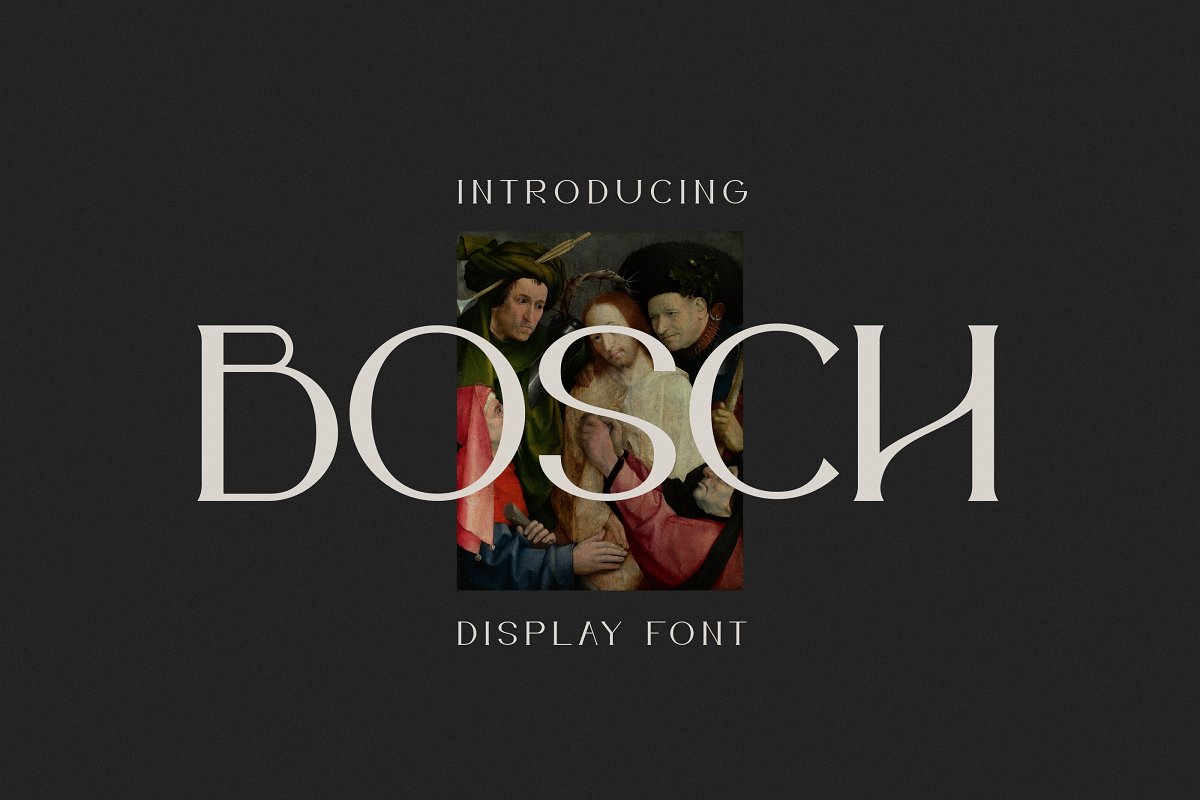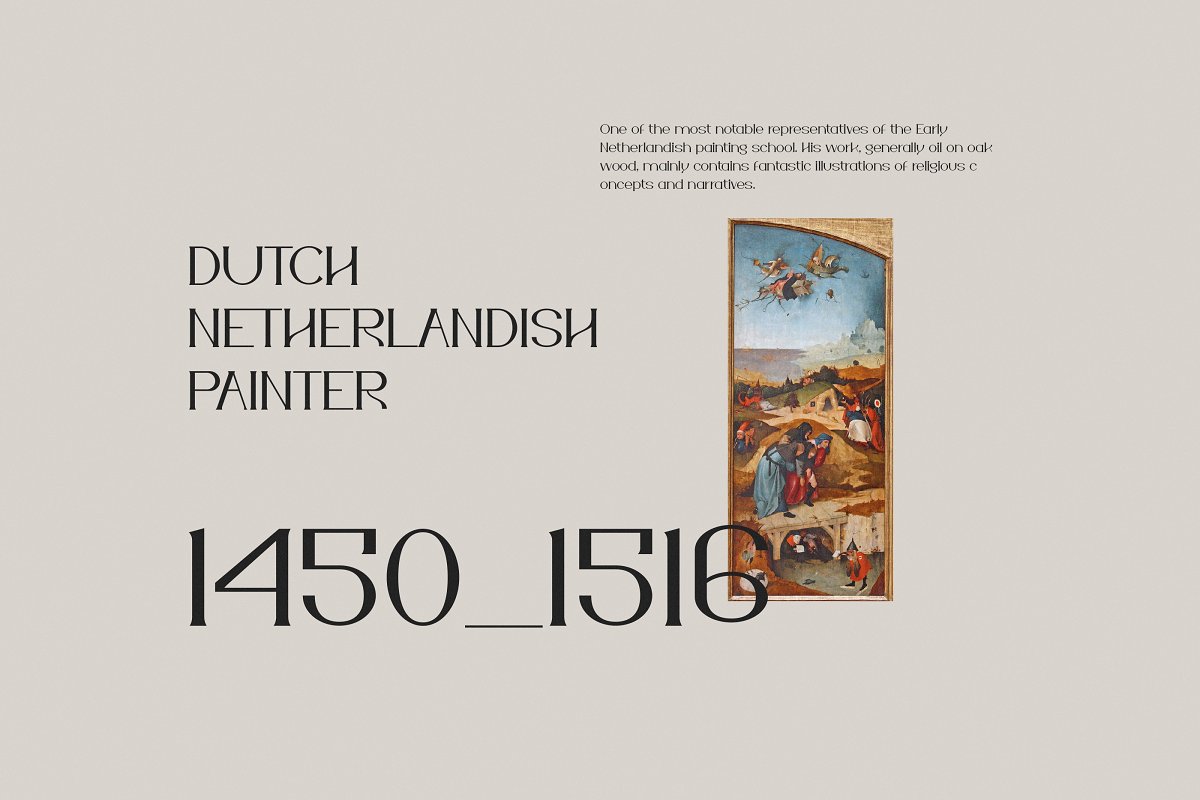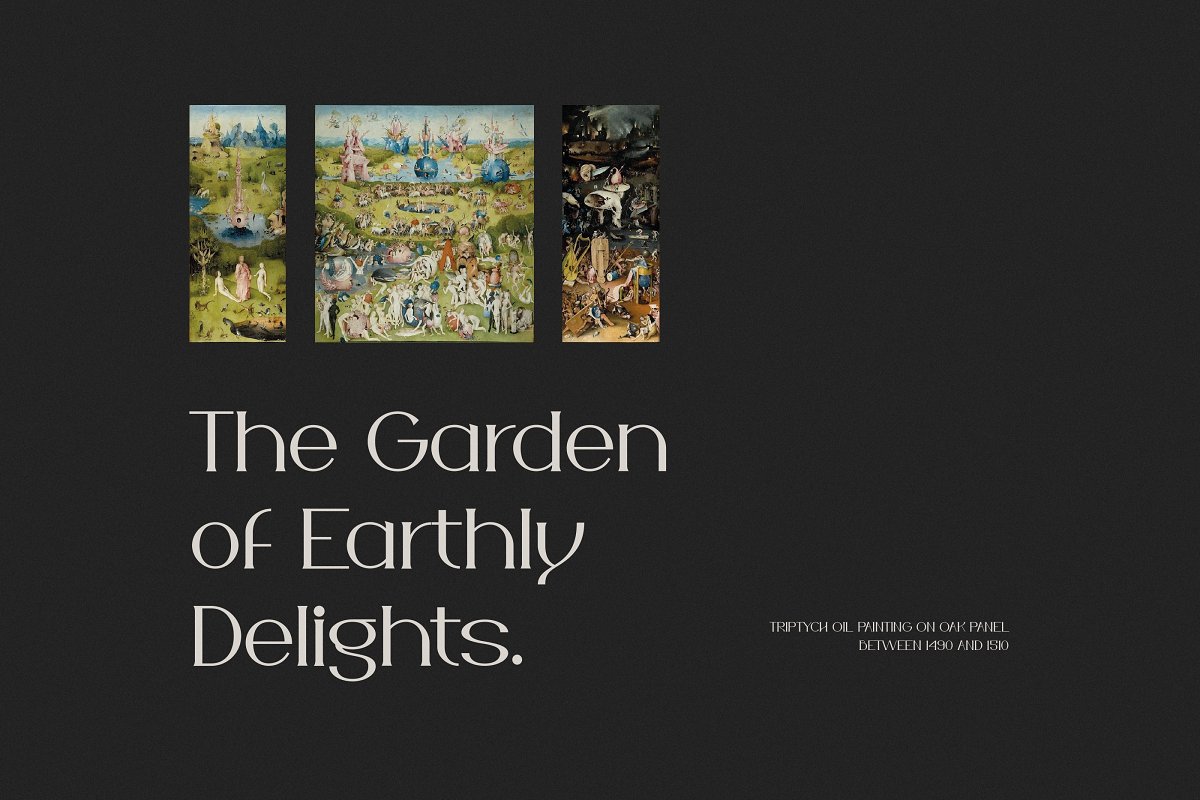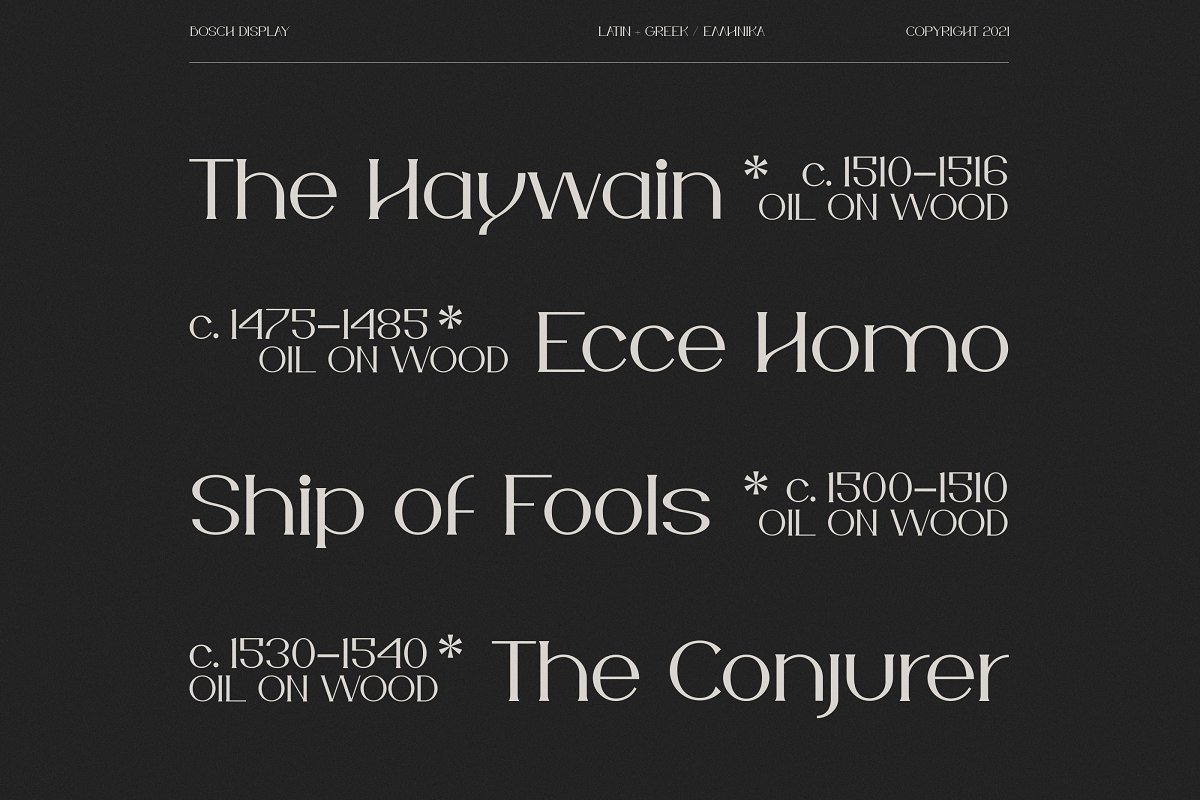
About the IF Bosch Display Font
IF Bosch display is a serif font, its soft curves and refined details create a sense of elegance, Inspired by Hieronymus Bosch (1450 – 1516) who was a Dutch/Netherlandish painter from Brabant, Considered one of the greatest artists of the Northern Renaissance, Bosch is known for creating restlessly imaginative works rich in religious symbolism, allegory, and fantastical elements depicted in bustling scenes across expansive compositions
1 weightUpper / lower case, numbers, punctuationLanguage support: English, American and GreekDesigned by iframe design studio